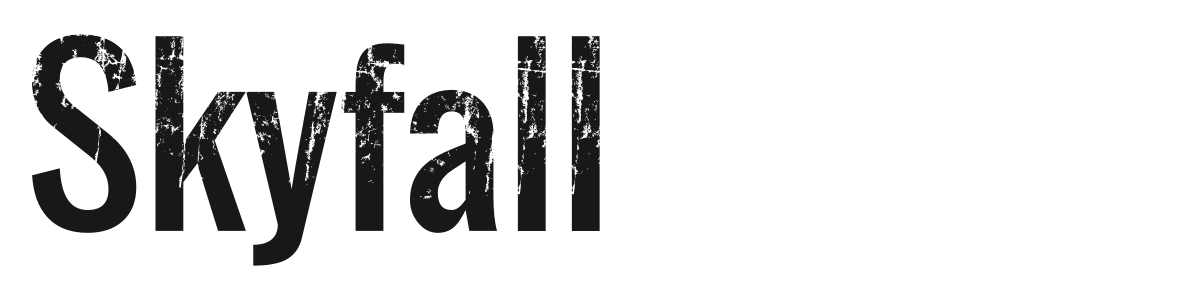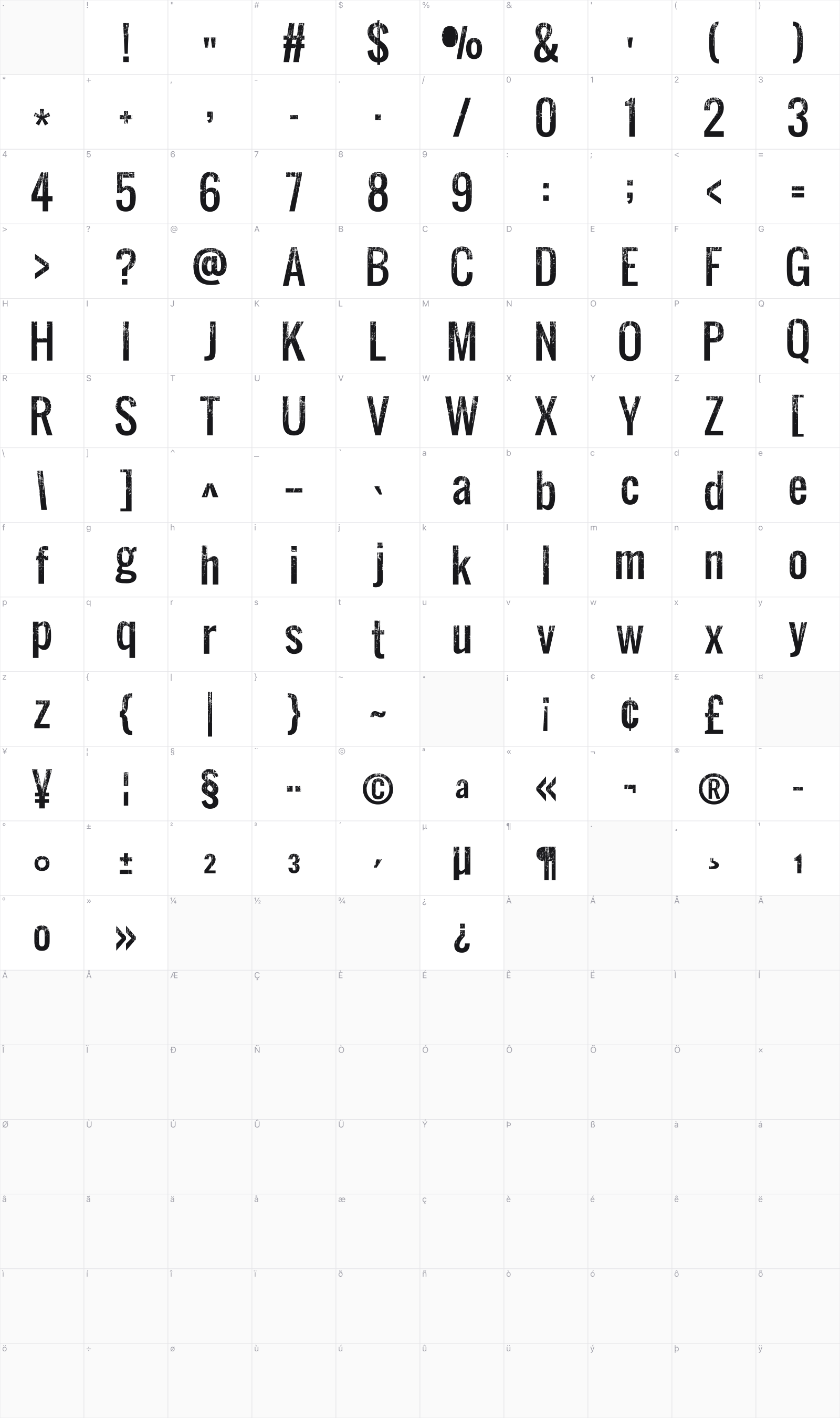
Skyfall
Skyfall is a bold, condensed display face from Chepi Dev with heavy grunge texture baked into every letterform. The narrow proportions keep things tight while the distressed surface gives it a raw, weathered intensity, like type that's been wheat-pasted to a wall and left in the rain. Built for posters, headlines, and short blasts of text where you want real grit at large sizes.